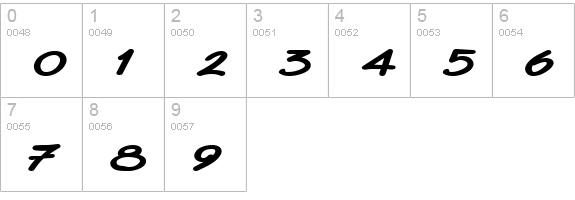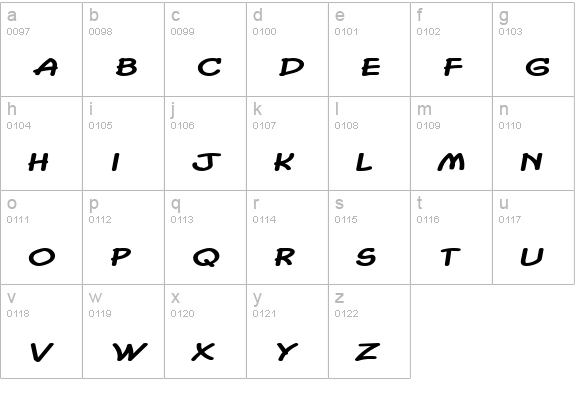
Chasm Extended BoldItalic is a distinctive, extended-width variant in the Chasm typeface family \xE2\x80\x94 well suited to design and typography projects.
Chasm Extended BoldItalic font is a stunning display typeface that exudes sophistication and modernity. With its bold and italic design, this font is perfect for making a bold statement in your designs. Whether you are creating posters, headlines, or branding materials, Chasm Extended BoldItalic will add a touch of elegance and style to your projects. And the best part? Chasm Extended BoldItalic font is available for free download at FontsMarket.com. So, you can easily enhance your designs without breaking the bank. Don't miss out on this incredible opportunity to elevate your typography game with the distinctive Chasm Extended BoldItalic font. Download it now and let your creativity soar!